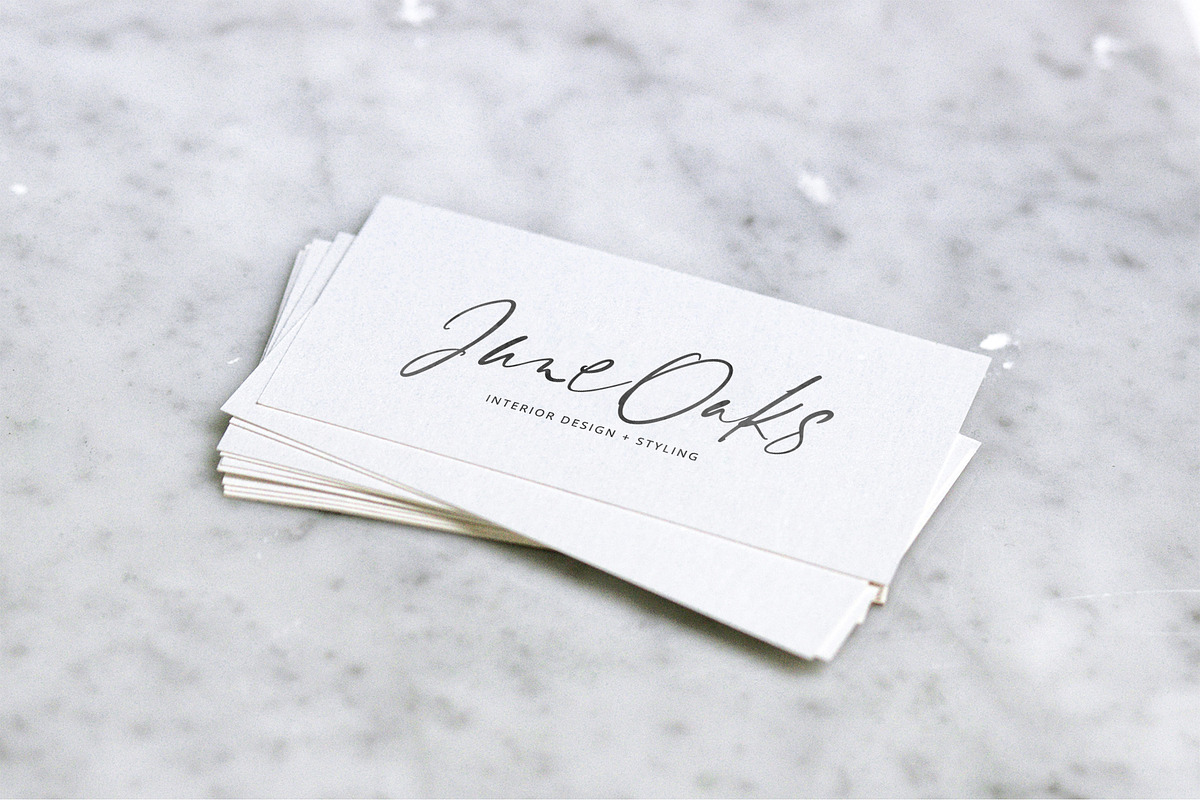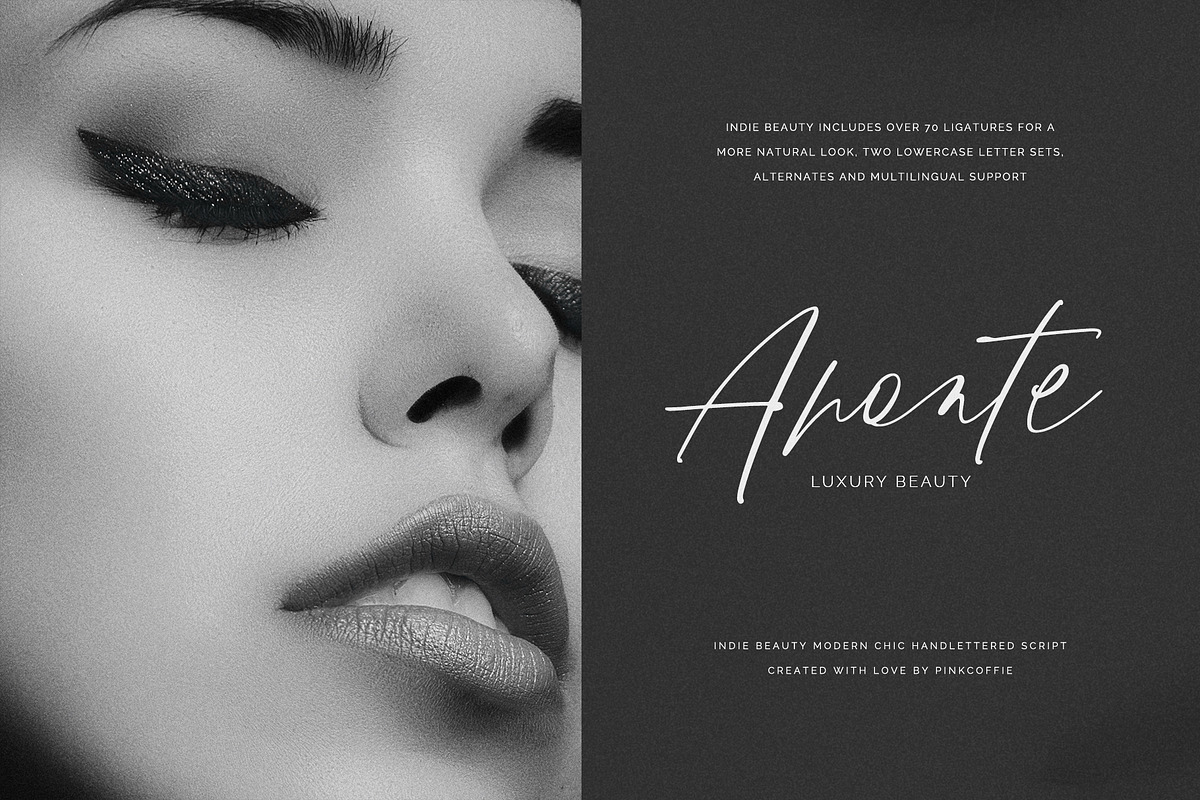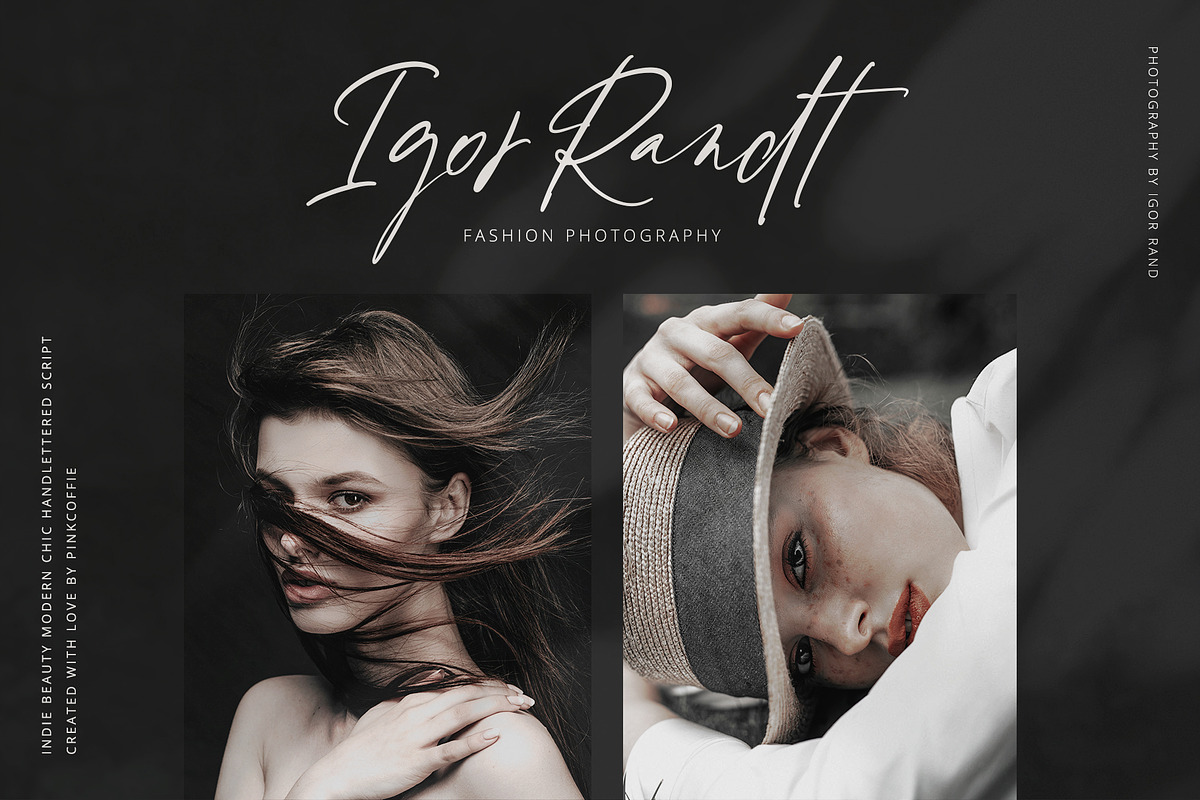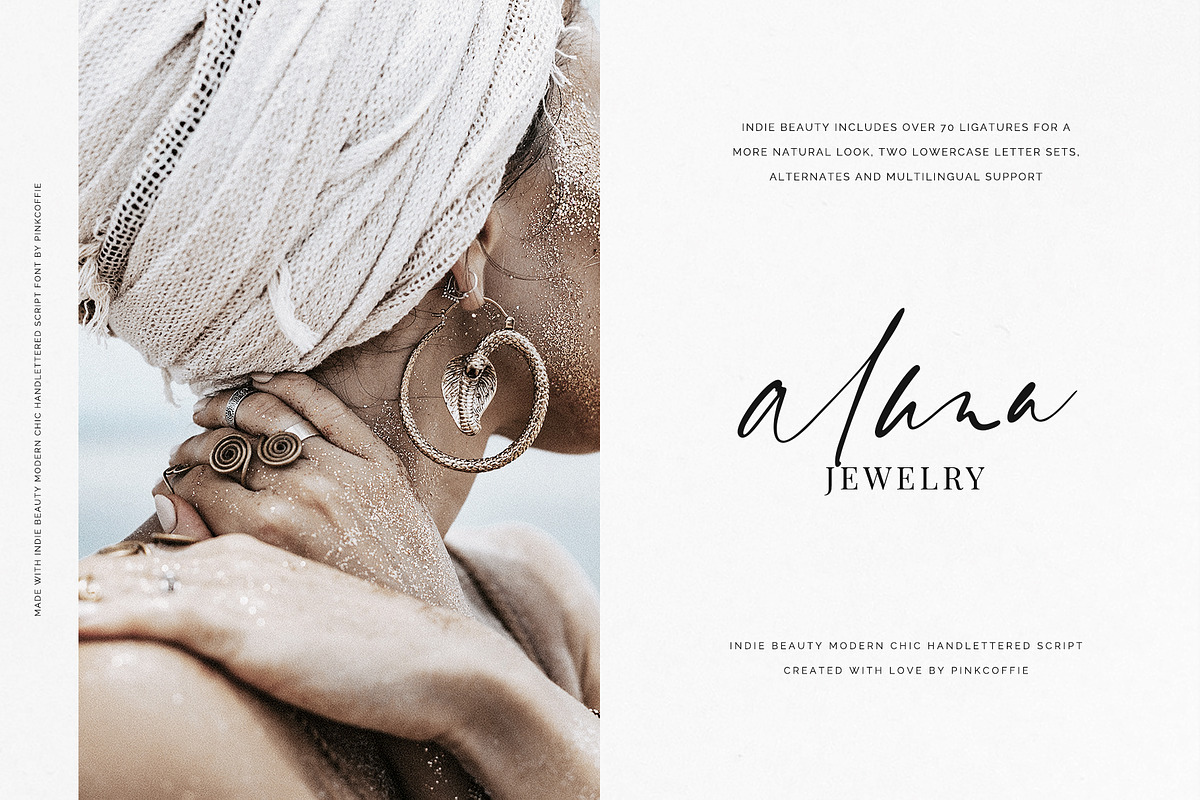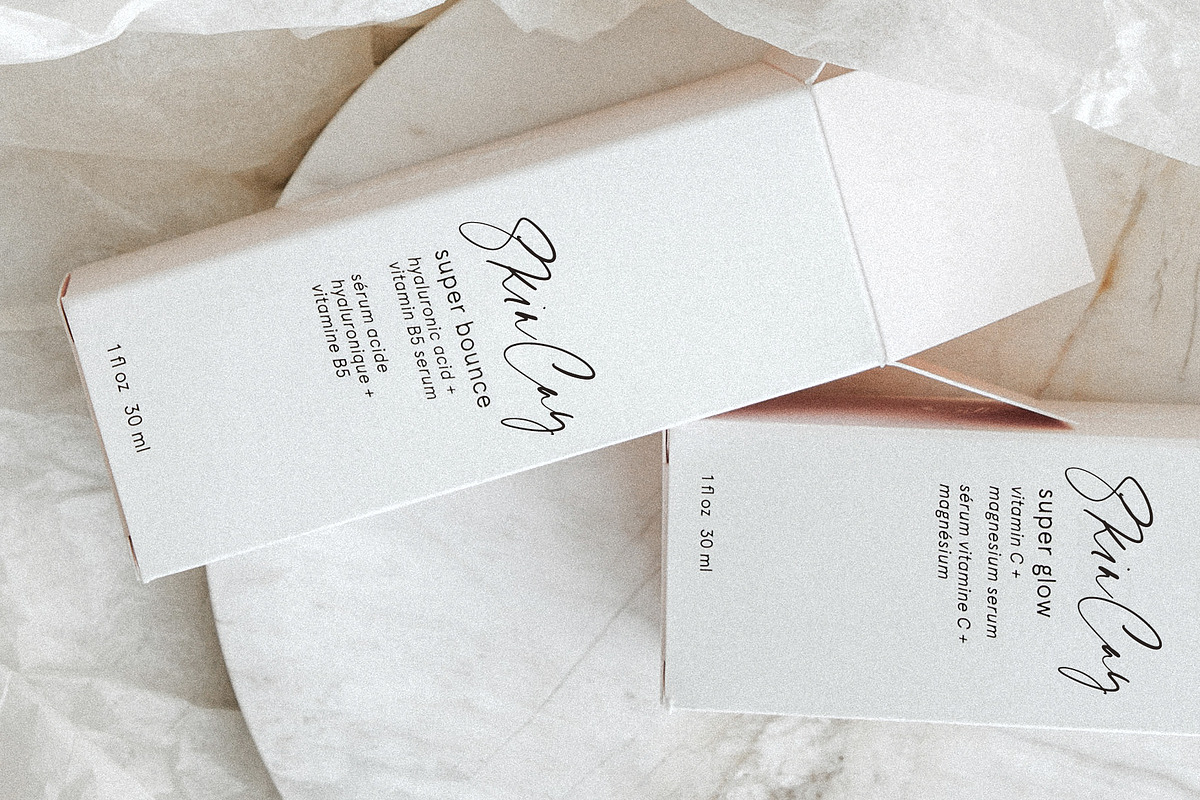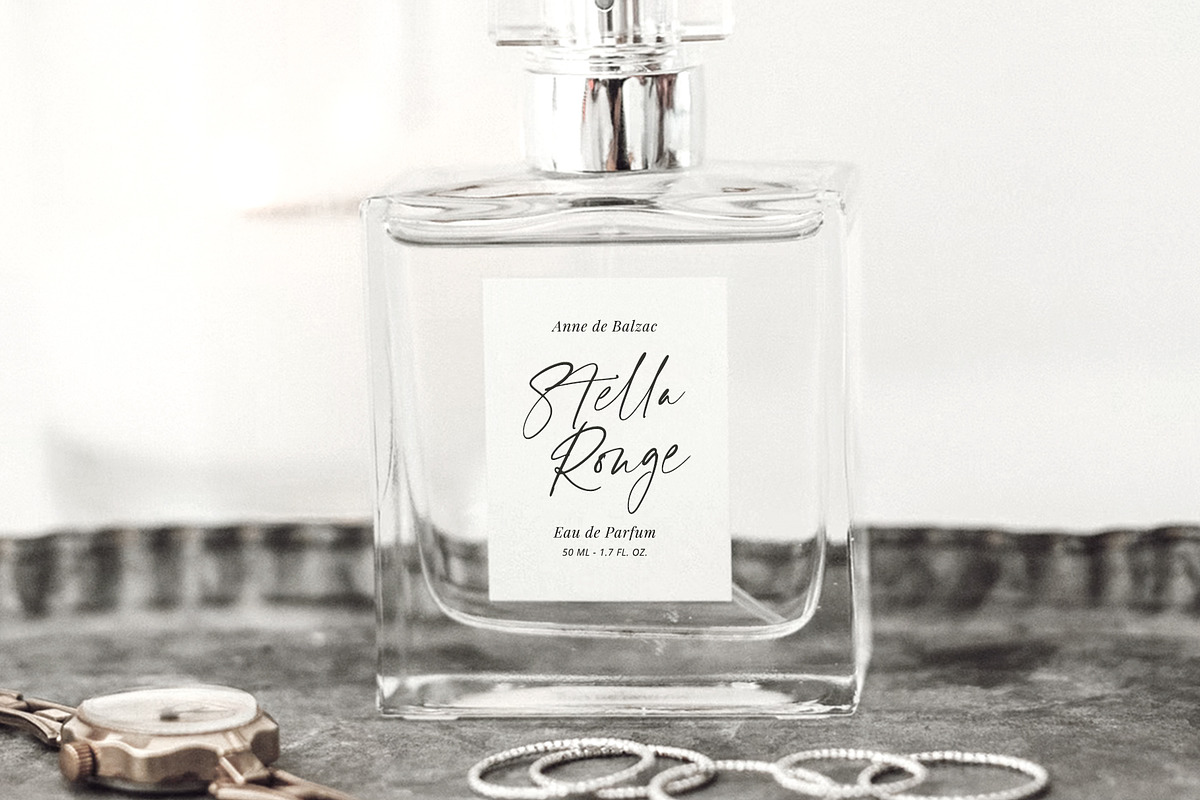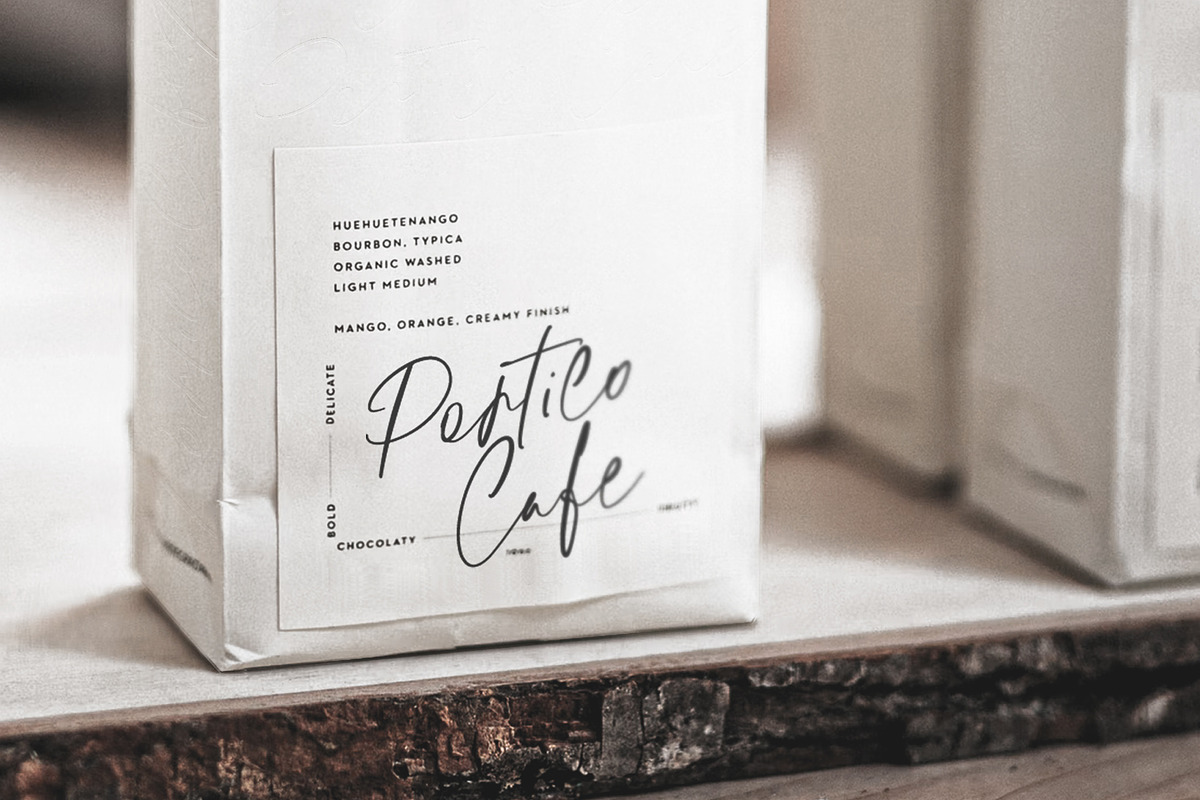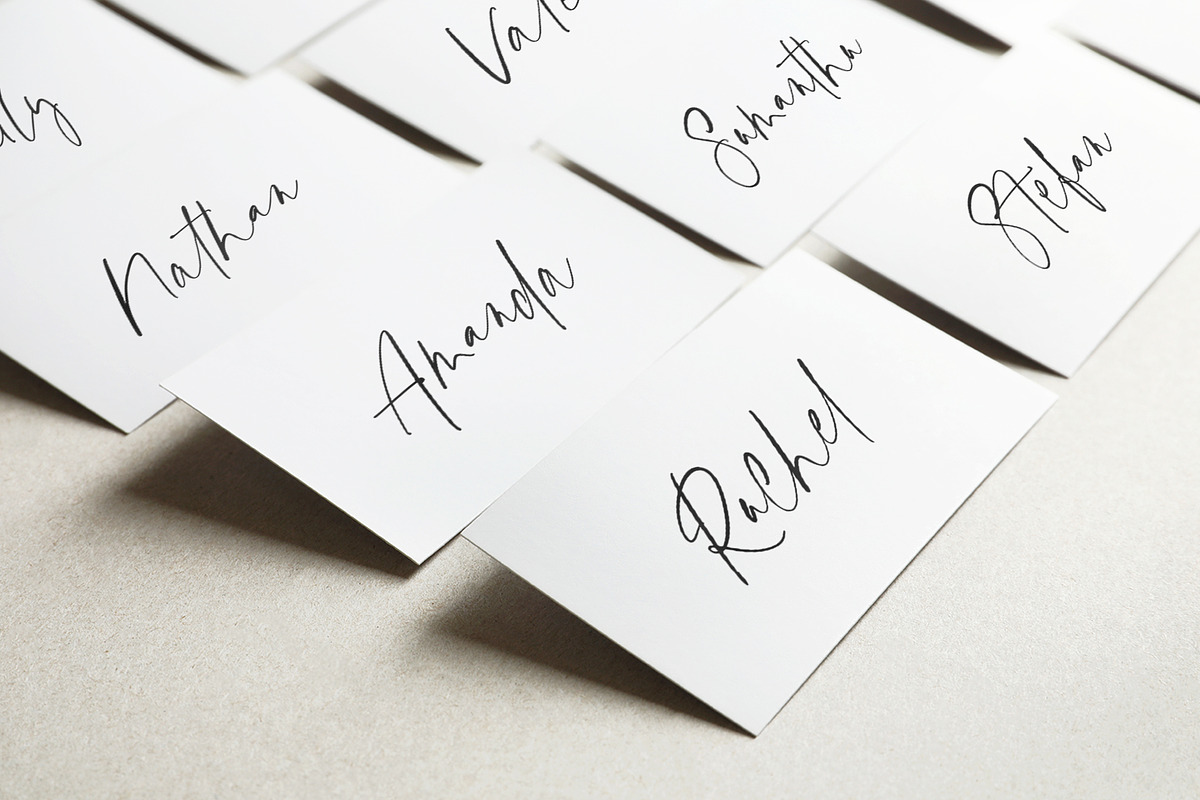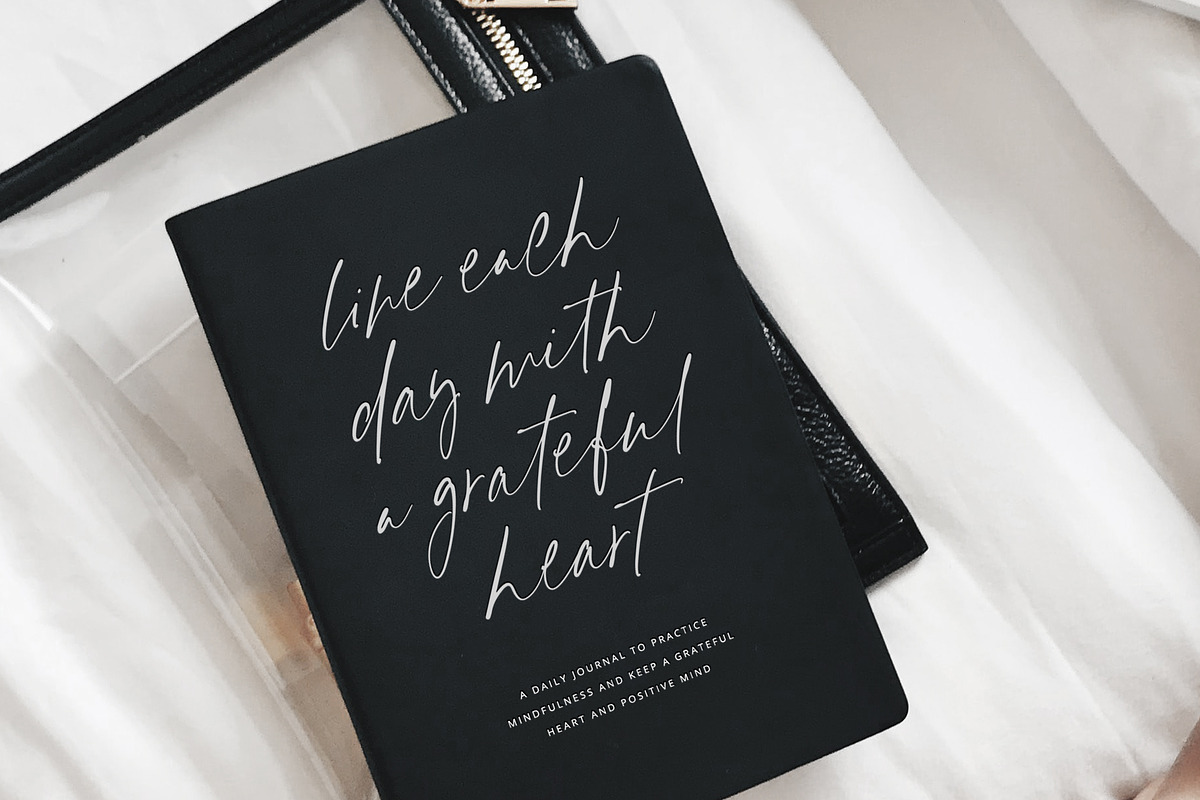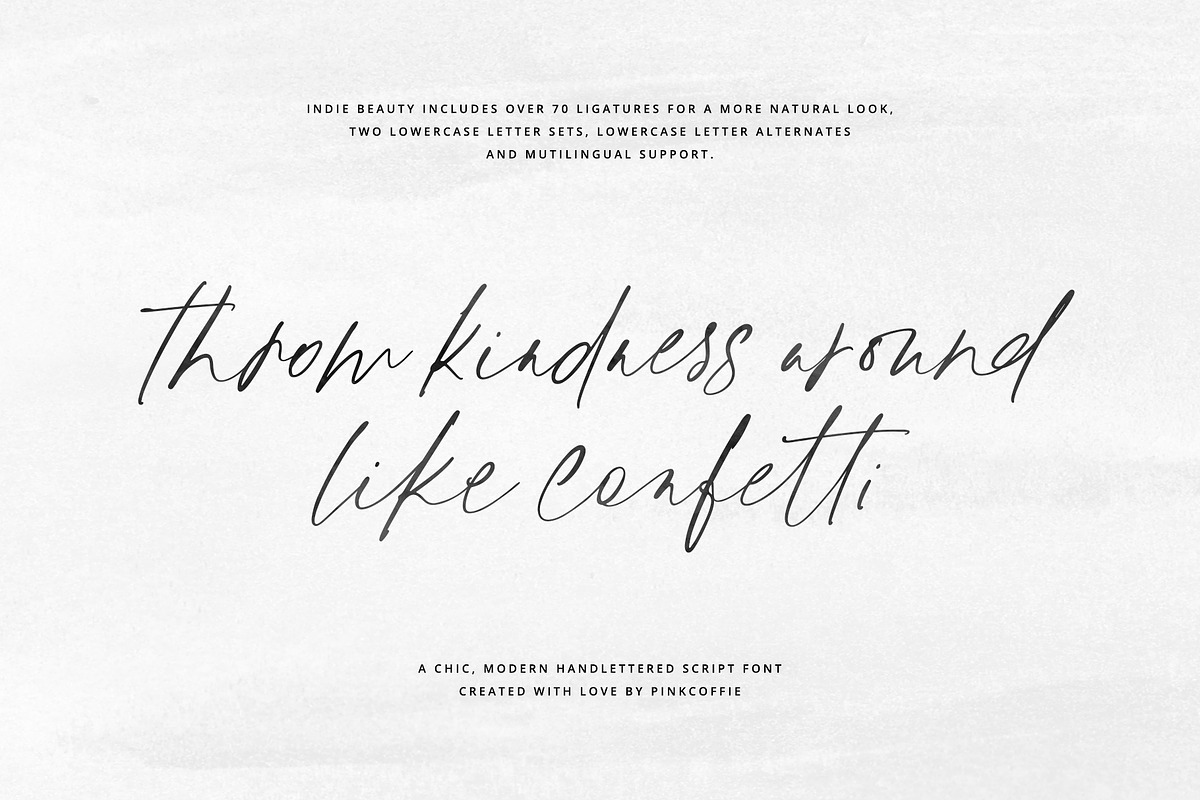
Indie Beauty Chic Handlettered Font
Say hello to Indie Beauty, a chic handlettered script font inspired by modern cosmetic packaging and trendy stationery, featuring contrasting letters combined in a casual brush lettering style for a fresh and modern look.
Indie beauty includes two lowercase letter sets, bonus lowercase alternates for selected letters such as a,e,i,o,t,r, and over 70 Opentype ligatures to ensure a more natural hand-lettered look.
This little handlettered beauty can be used in a variety of projects, such as modern stationery, packaging, apparel, wedding stationery, prints, quotes, social media graphics, planners, greeting cards, logos, branding, and much much more.
MULTILINGUAL SUPPORT: The script includes multilingual support and the following multi-lingual characters: ÁĂÂÄÀĀĄÅÃÆĆČÇÐĎÉĚÊËĖÈĒĘÍÎÏÌĪĮĹĽŁŃŇÑÓÔÖÒŐŌØÕŔŘŚŠŞŤÚÛÜÙŰŪŲŮÝŹŽŻ áăâäàāąåãæćčçċďđéěêëėèēęğġíîïìīįĺľłńňñóöòőōøõŕřśšşßťúûüùűūųůẃŵẅẁýŷÿỳźžż